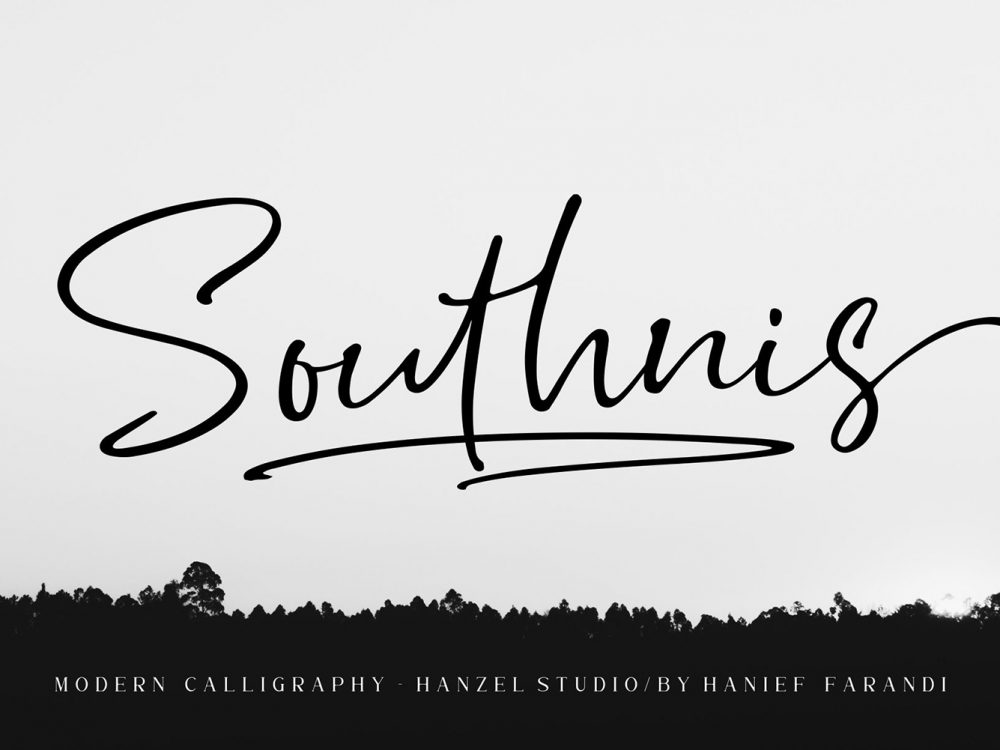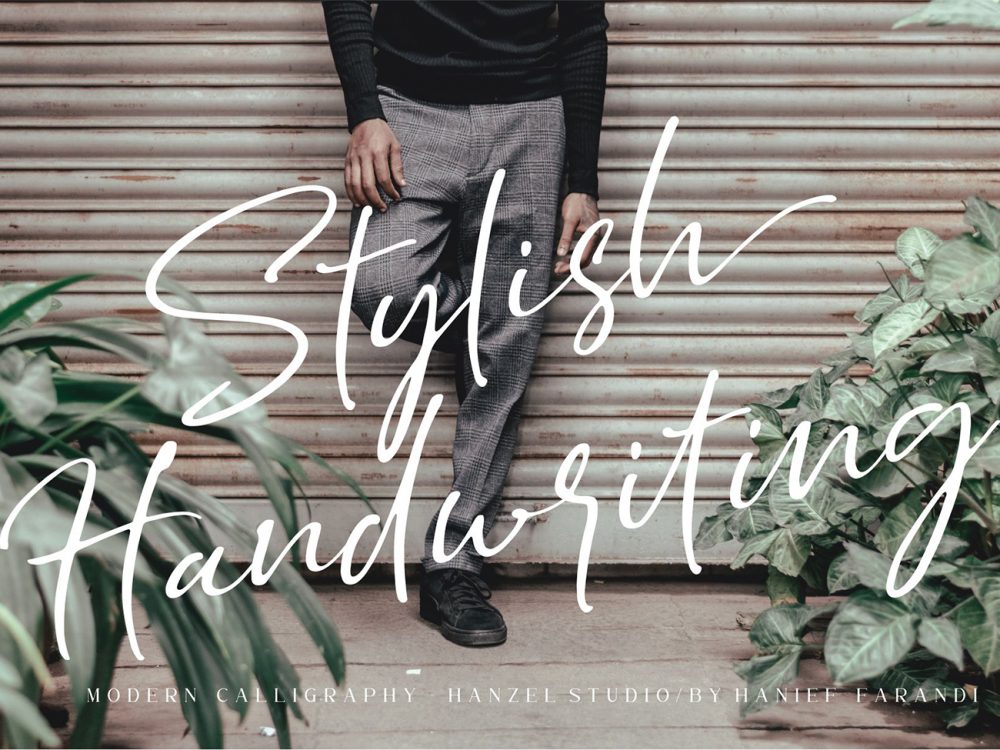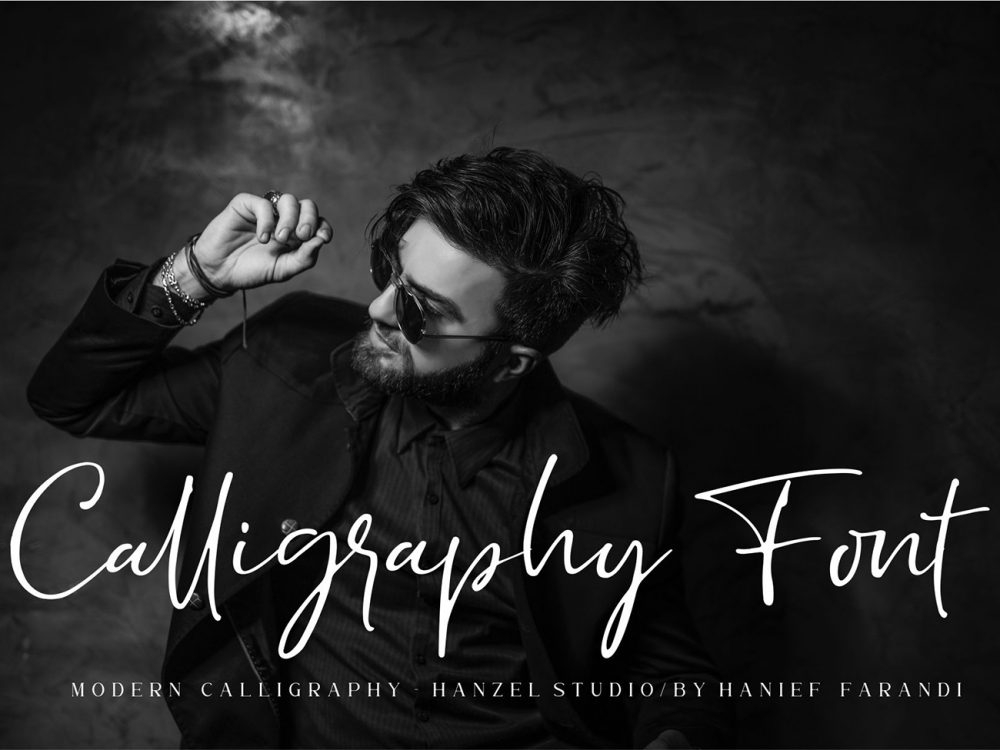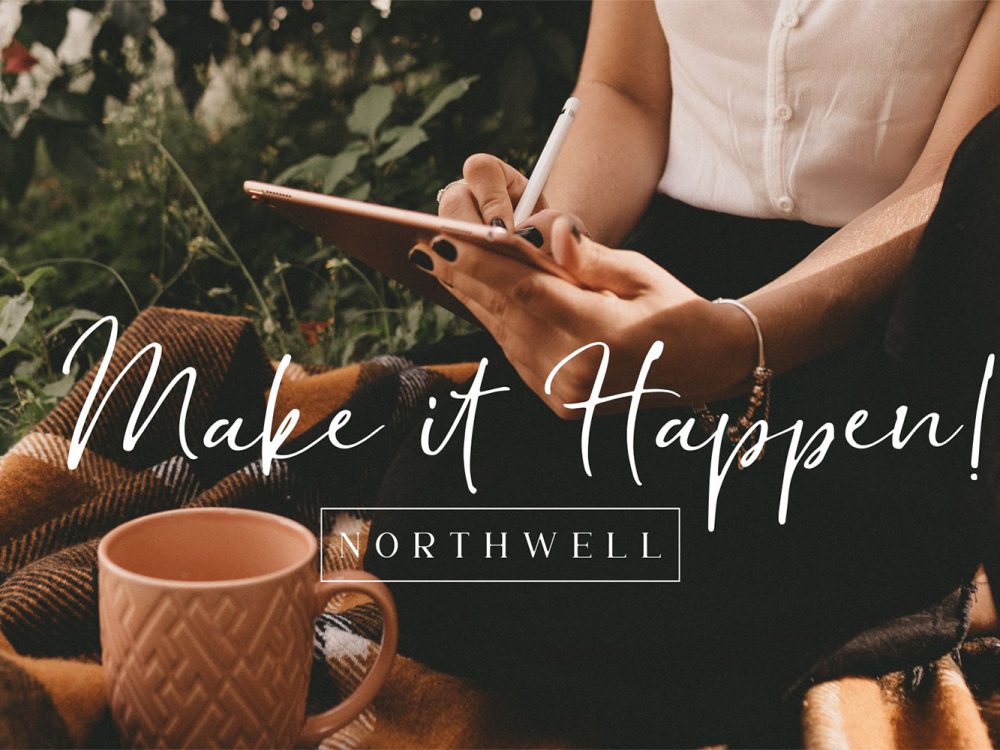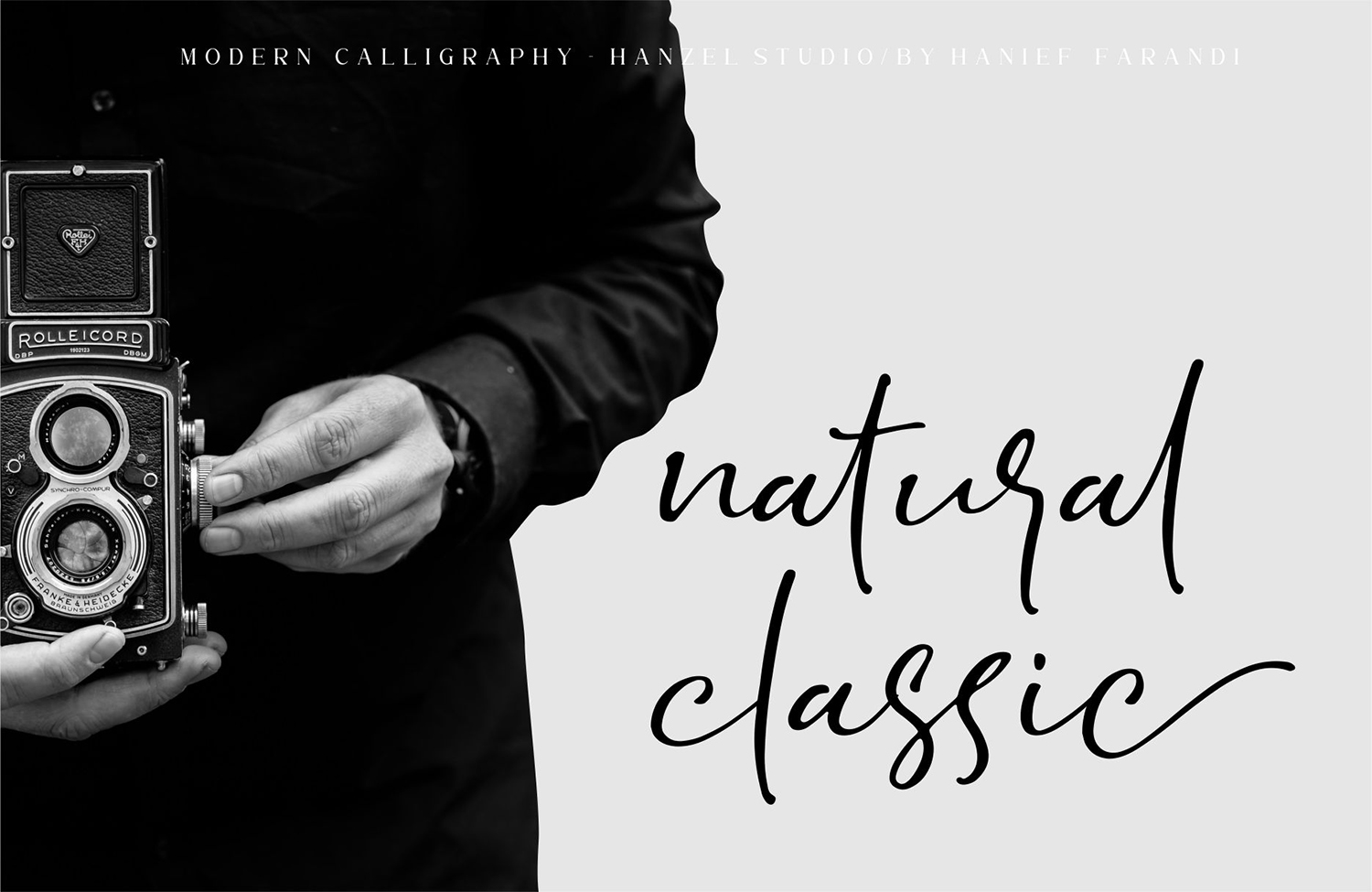
Southnis Script Free Font
Southnis Script Free Font is an interesting script typeface that features a modern calligraphic style. This font is very suitable for creating various projects that require a scripted handwritten font. You can use this font to create memorable branding projects, logos, wedding designs, social media posts, advertisements, product packaging, product designs, label, photography, watermark, invitation, stationery, and more. Improve your professional level using this font. If you like it don’t forget to check out the full version.
Author: Hanzel Space